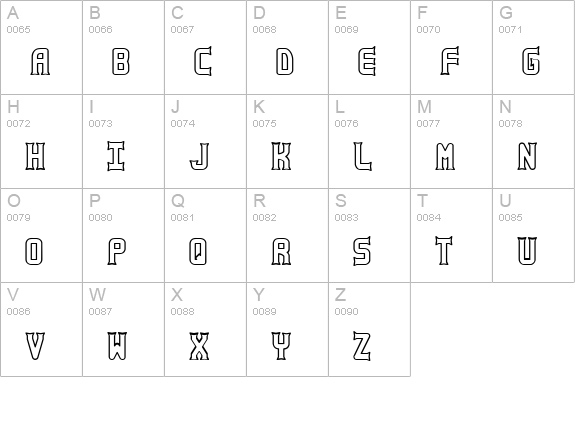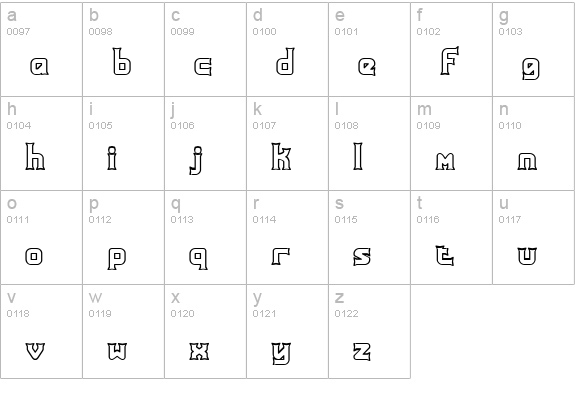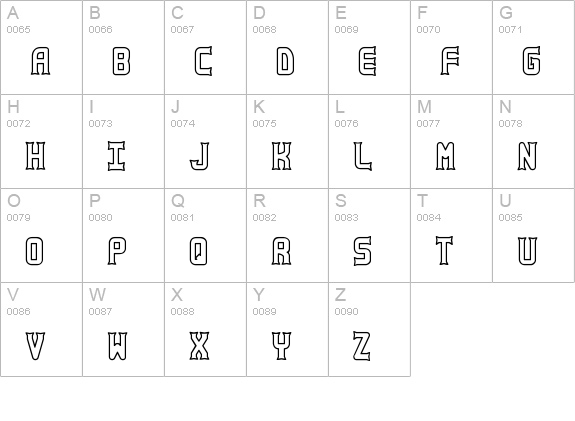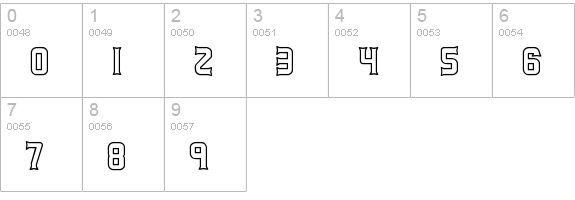
Ataxia Outline (BRK) Font Details
Ataxia Outline (BRK) font is a stylish and modern typeface that exudes sophistication and elegance. Its sleek and contemporary design makes it perfect for a wide range of projects, from branding to digital designs. The outline style of the font adds a unique and eye-catching touch to any text or graphic. One of the best things about Ataxia Outline (BRK) font is that it is completely free to download. You can easily access this beautiful font at FontsMarket.com and enhance your creative projects without any cost. Whether you are a designer looking to add a fresh and trendy element to your work or a business owner wanting to create a memorable brand image, Ataxia Outline (BRK) font is an excellent choice. With its clean lines and modern aesthetic, Ataxia Outline (BRK) font is sure to make a statement and leave a lasting impression. Download this font for free today and elevate your designs to the next level.